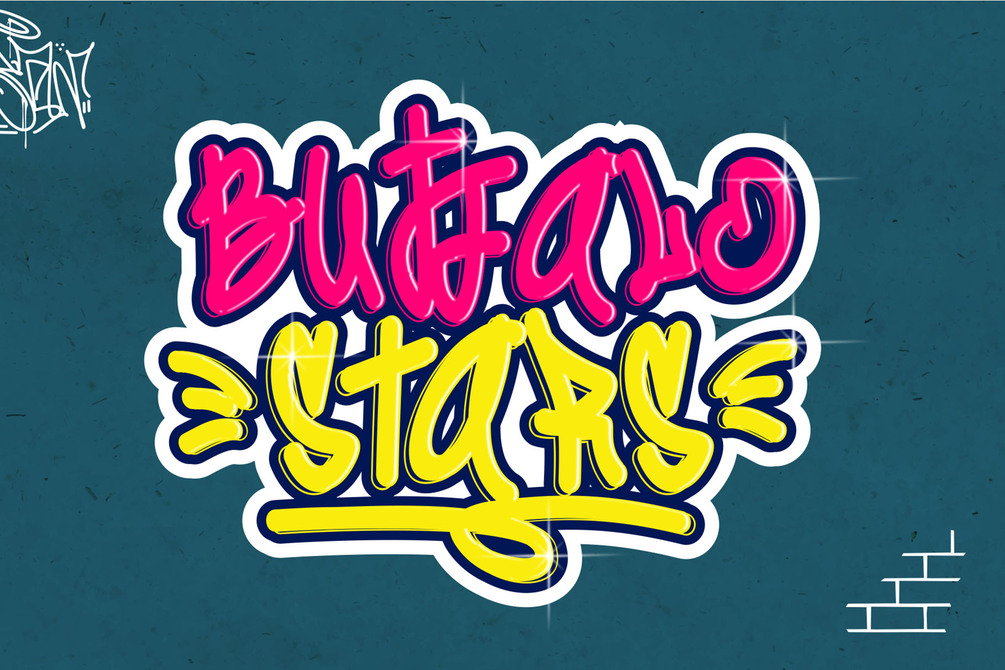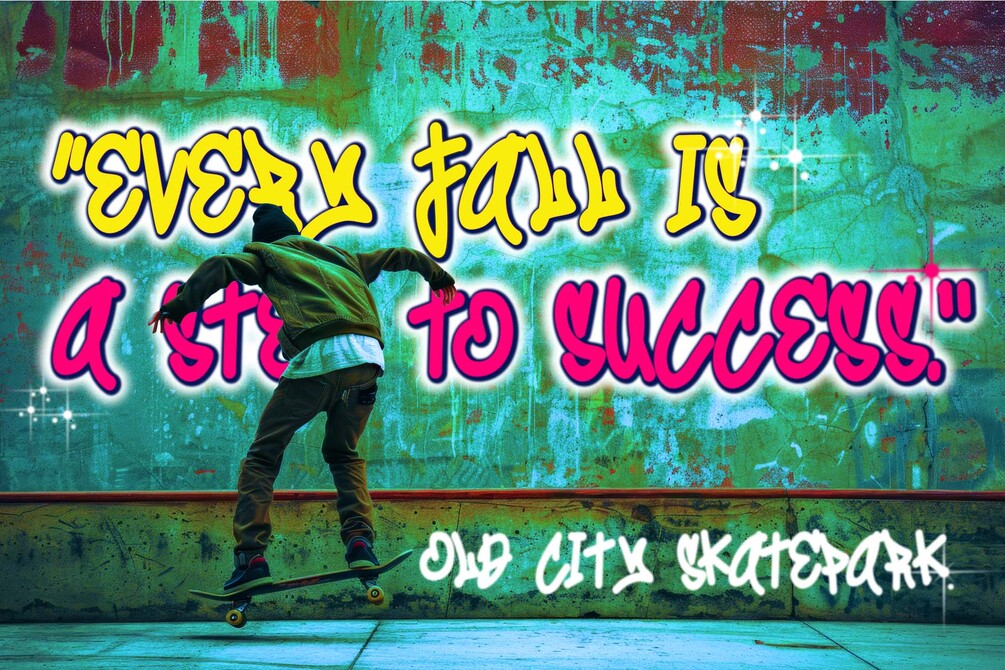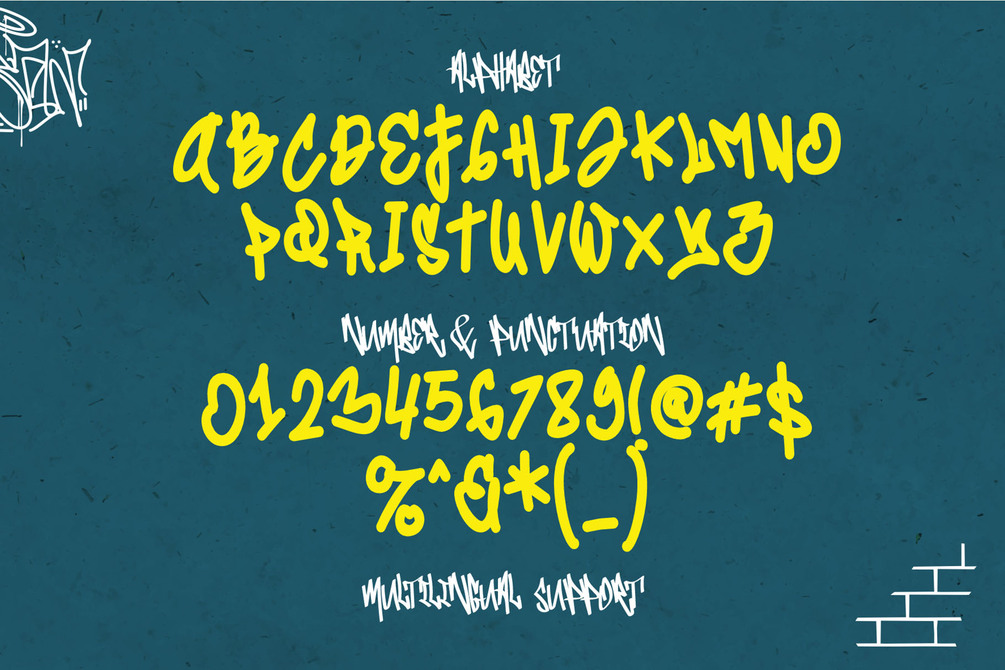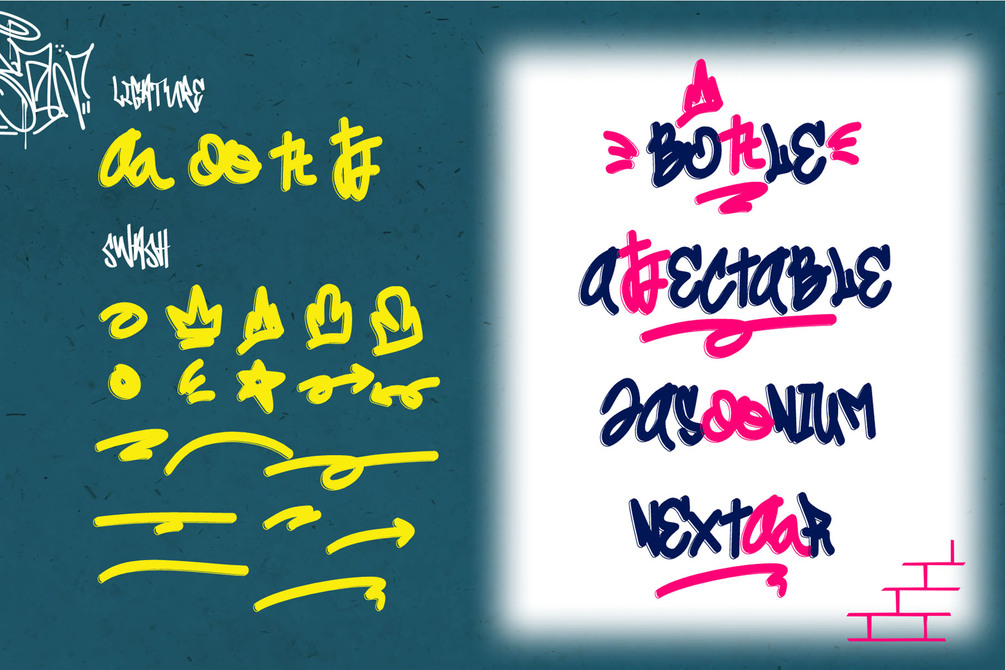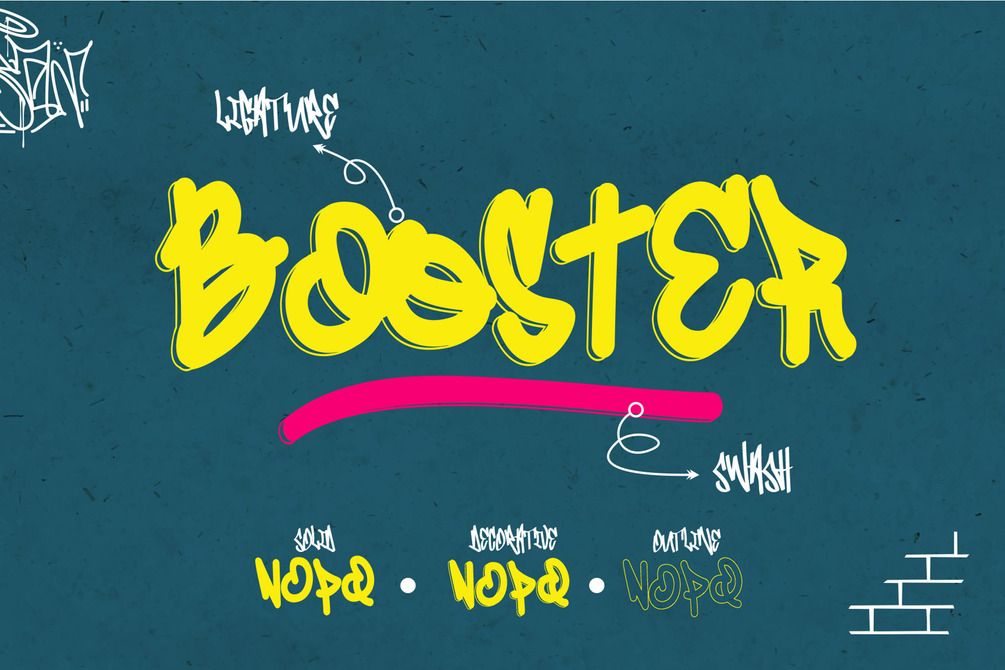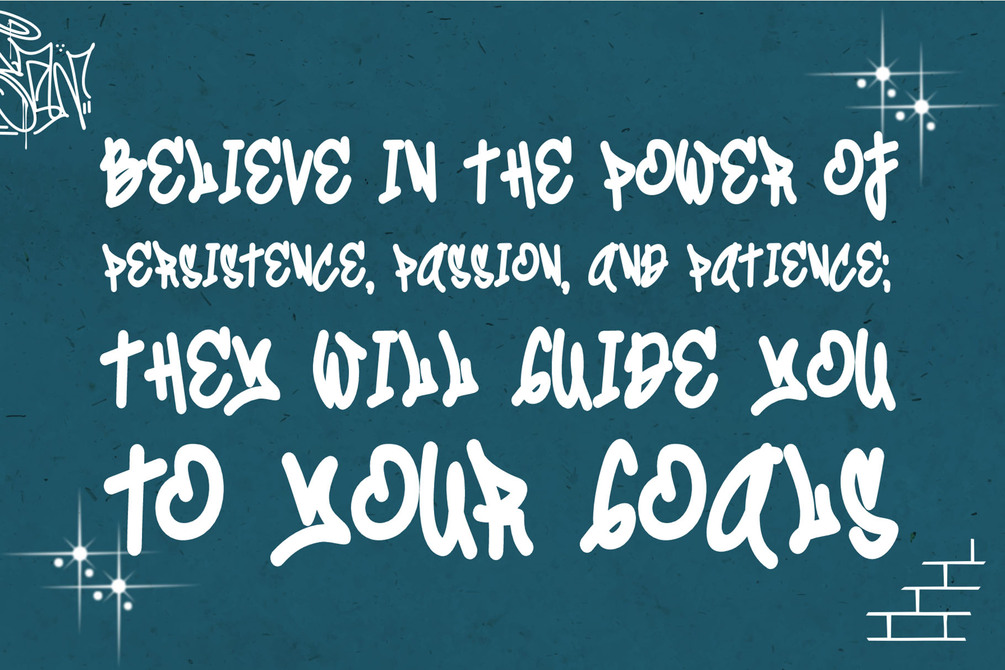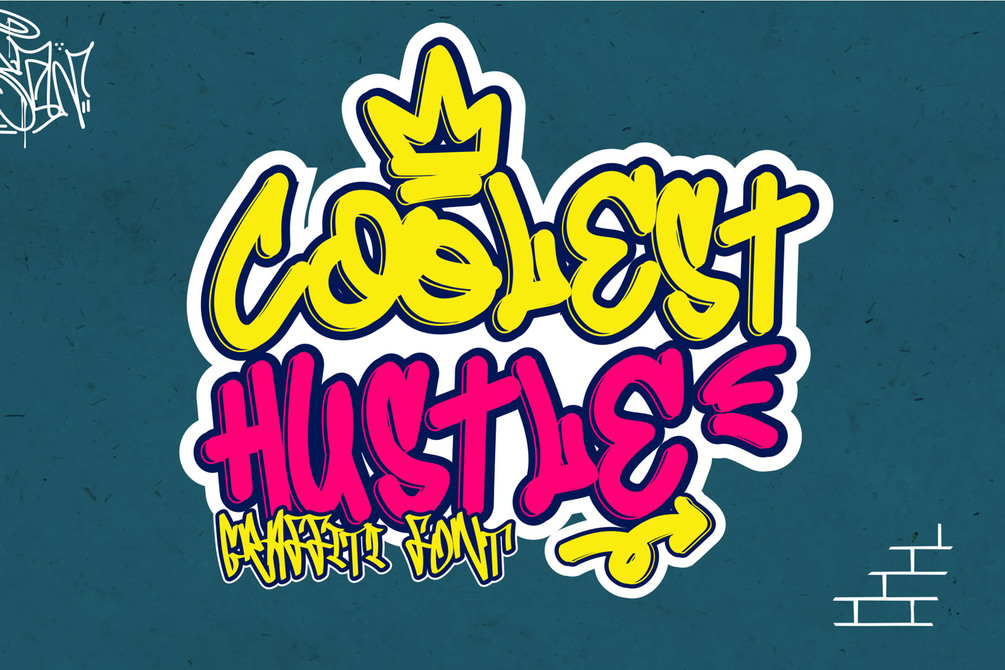
Coolest Hustle is a decorative natural monoline graffiti typeface that brings a vibrant and dynamic aesthetic to your design projects. It includes three distinct font styles: decorative, solid/clean, and outline, making it incredibly versatile for a range of creative uses. The decorative style has intricate details, perfect for adding flair and personality, while the Solid/clean version offers a polished and sleek finish for a more refined look. The outline style stands out with bold, striking lines that provide contrast and depth.
Features
• Swash
• Ligature
• Multilingual
• Versatile for branding, headline, or printing product